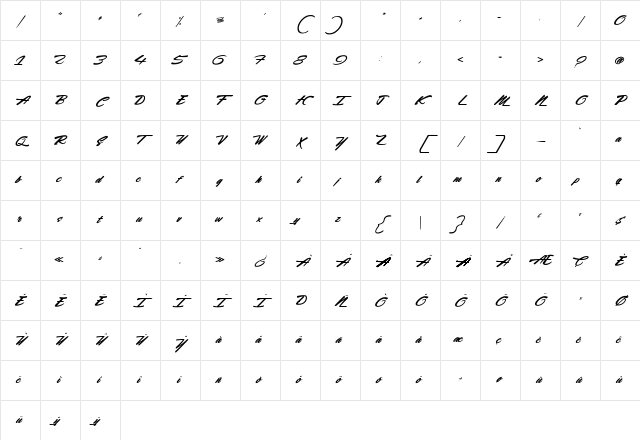
Complete Rocking Season Regular glyph index. Displaying only characters natively supported by Rocking Season Regular font.
Rocking Season is a composed and adaptable typeface that performs quietly and consistently across a wide range of design contexts.